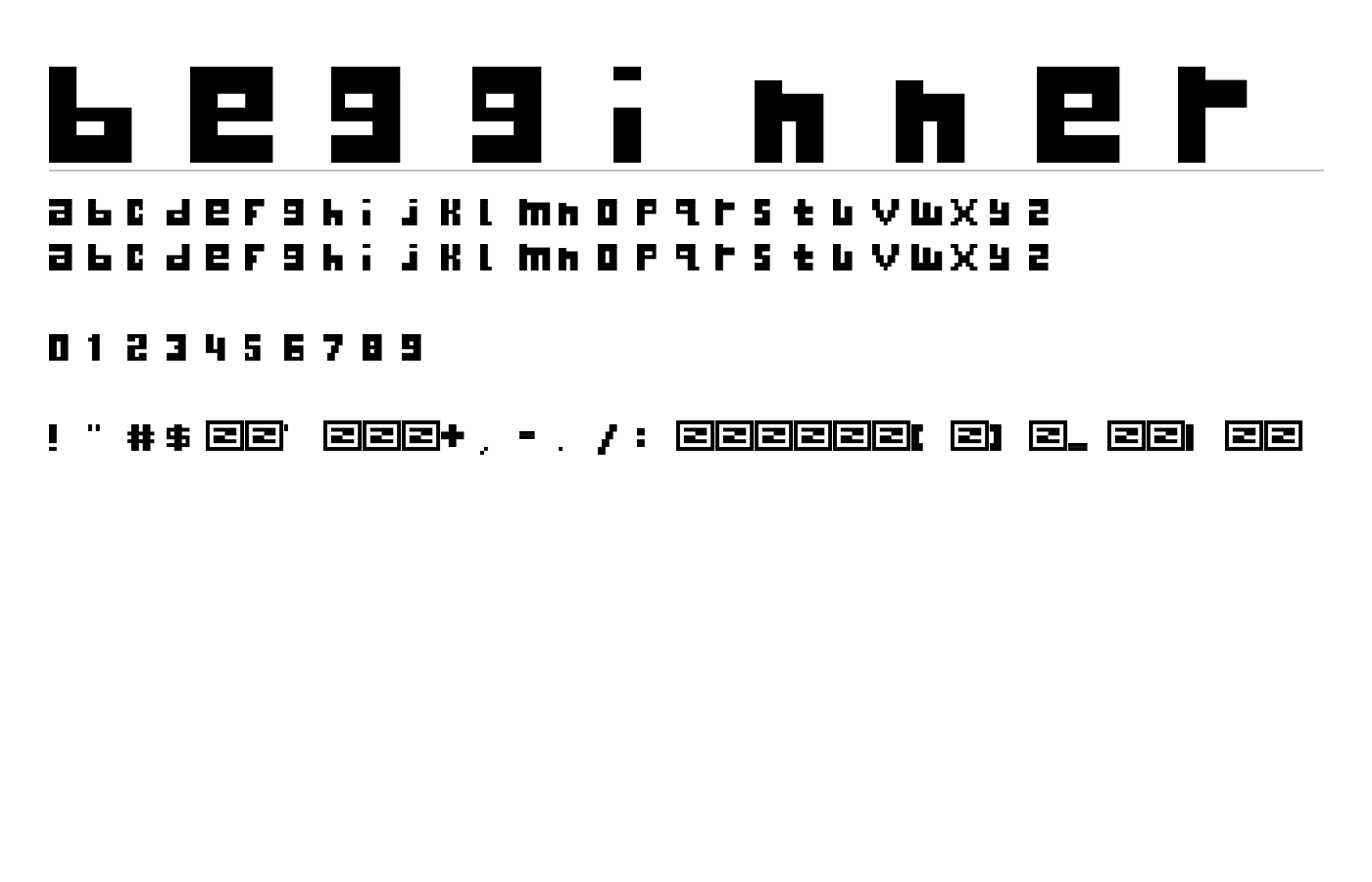
Begginner Font is a bold, blocky sans-serif typeface with a pixelated, geometric design that evokes a retro digital or video game aesthetic. Its uniform weight and square letterforms create a strong, rigid appearance that works well for headlines, logos, and designs needing a tech-inspired, playful, yet sturdy vibe. This font shines in projects related to gaming, technology, or any modern retro style where clear, impactful typography is key.
begginner Font
About begginner Font
| Font family | begginner Font |